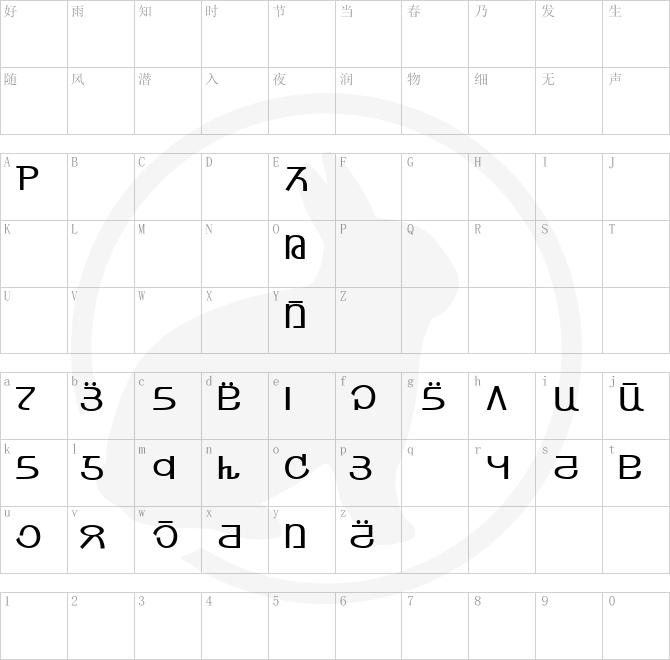
- Font Name:Dadh Ath
Dadh-Ath.ttf is a very beautiful artistic font, Dadh-Ath.ttf is widely used in the design and printing of various books and pictures,Dadh-Ath.ttf has a strong visual impact,Dadh-Ath.ttf is a commonly used font in newspapers, magazines and books, and is used in posters, e-commerce Poster design, store design, logo design, font design and other fields.Dadh-Ath.